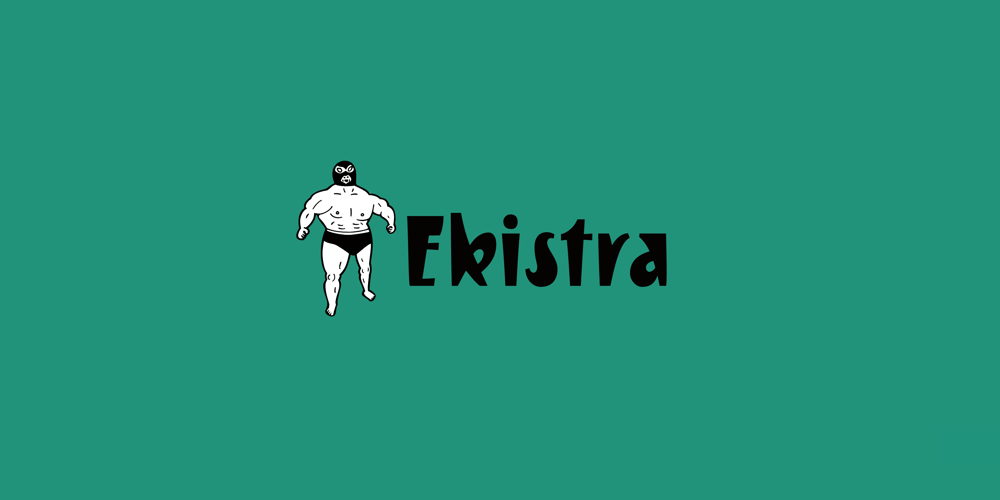
Ekistra
Ekistra font
Ekistra Font Family was designed by Ryoichi Tsunekawa and published by Dharma Type. Ekistra contains 1 styles and family package options. Crazy sans for happy, fun time. There are two other fonts designed by in the same concept. -Deluta Black -Xesy -Ekistra